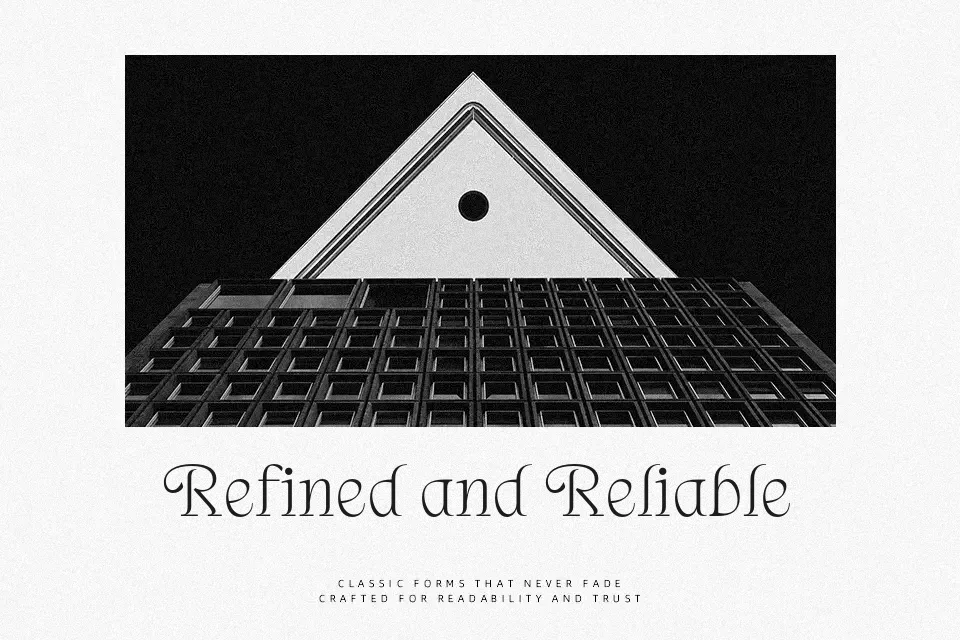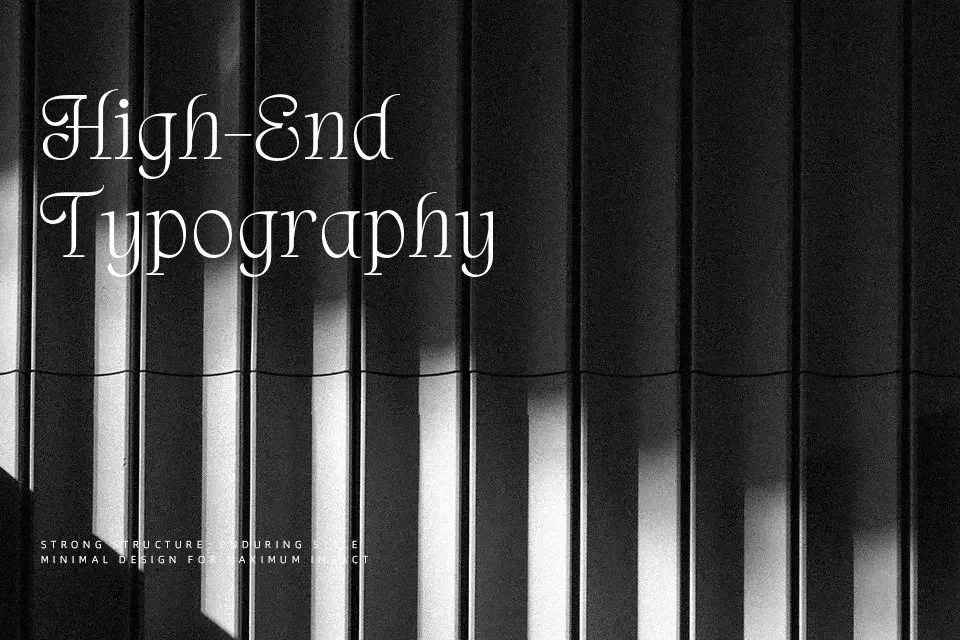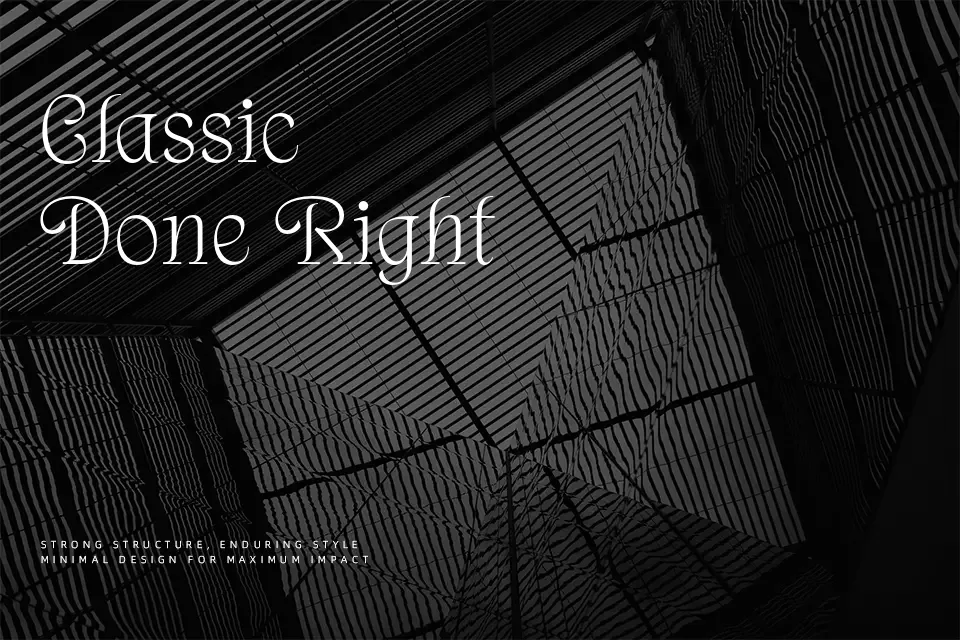
Artisan Paris Font
There’s a slow, deliberate charm to Artisan Paris that earns its name. The strokes carry a calligraphic rhythm — high contrast between thick and thin lines, with delicate ornamental curves woven into both uppercase and lowercase characters. It reads as a display typeface first: the letterforms open up beautifully at large sizes, where the fine details in each glyph have room to breathe. At smaller sizes, legibility drops noticeably — this is not a body copy font, and treating it as one will undermine a layout fast. Where it genuinely shines is in branding contexts that need to feel curated: a perfume label, a fashion magazine cover story, a wedding stationery suite. Regular and Italic weights offer some expressive range, with the Italic leaning more dynamic than its serif structure implies. Think of it as sitting near fonts like Playfair Display, but with more personality and less restraint.
Best For:- Fashion brand identity and product packaging headers
– Boutique wedding invitations and stationery
– Editorial magazine titles and beauty campaign headlines
– Café or patisserie menu feature text
Not Ideal For:- Body text or long-form readable content
– Corporate presentations or formal business documents
– Digital UI labels or small-size interface elements
– Projects requiring multilingual script support beyond Latin
Perfect for branding, editorial, and fashion, with a classic and decorative style.